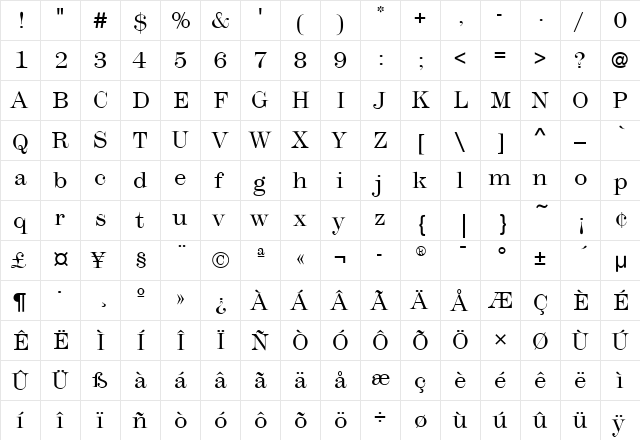
ModernTwoSixtnITC Light
Design Context for ModernTwoSixtnITC Typeface
ModernTwoSixtnITC offers clean, dependable letterforms without strong stylistic allegiance, making it a practical choice for designers who need flexibility. The delicate stroke weight brings airiness and refinement to layouts.